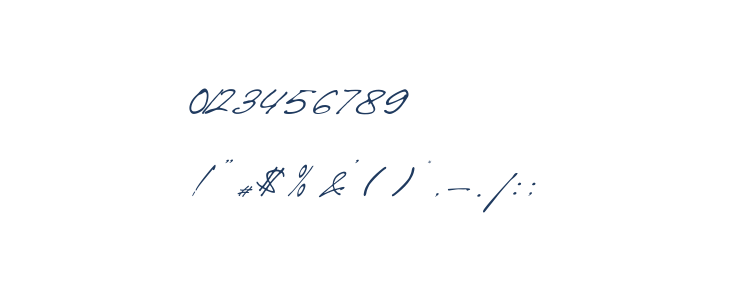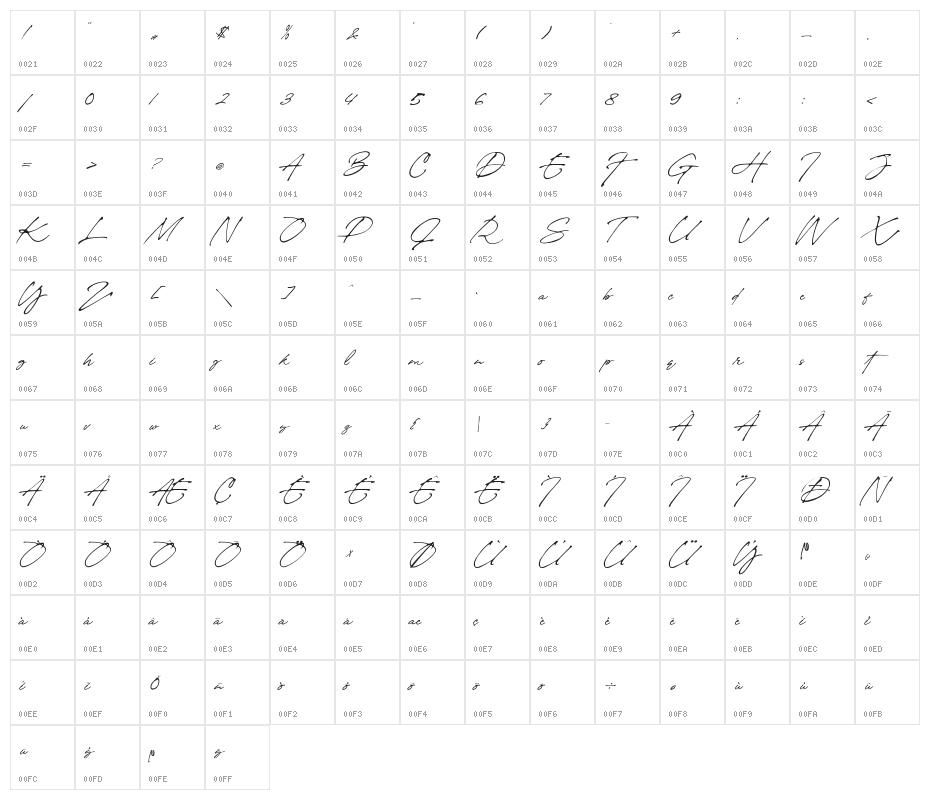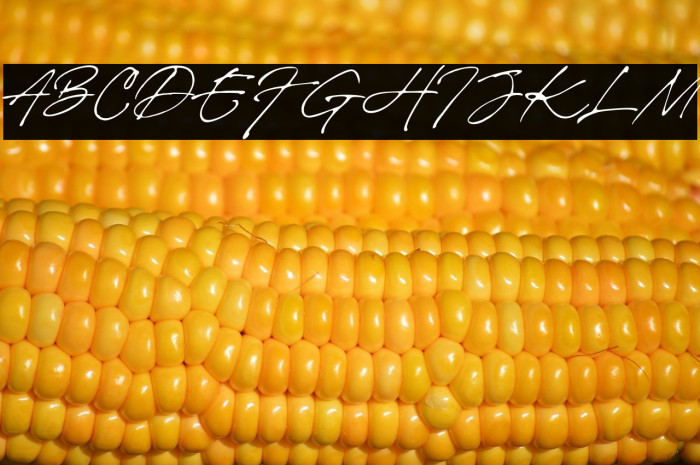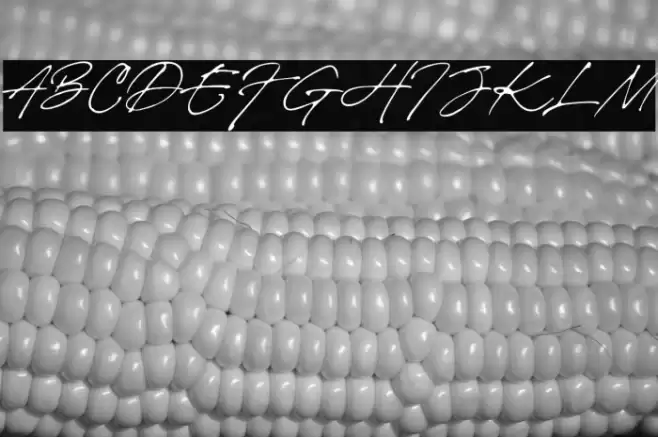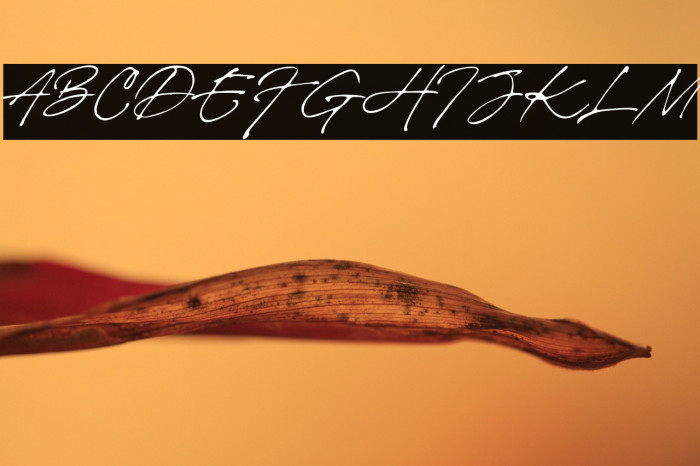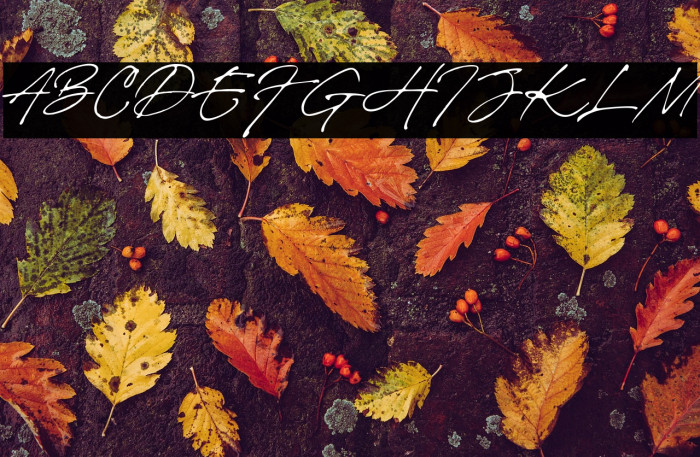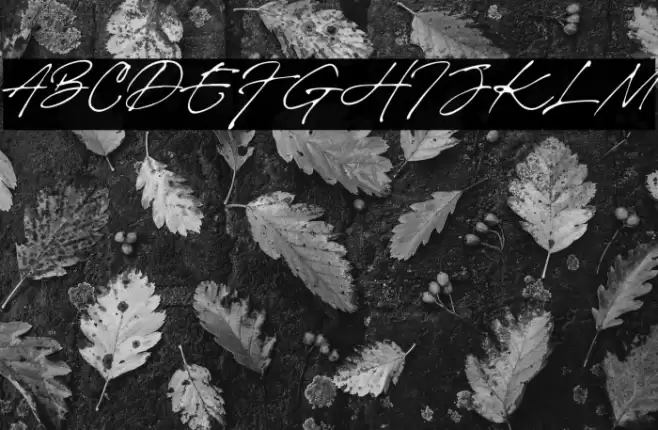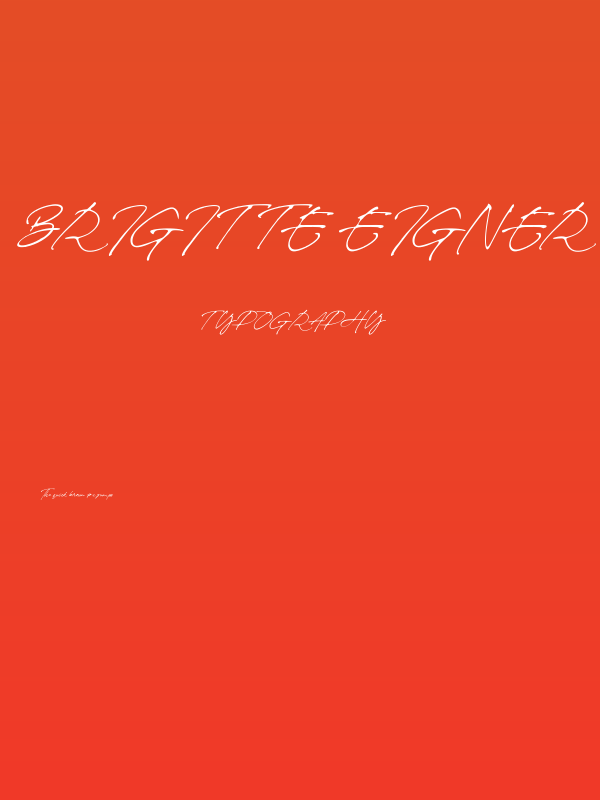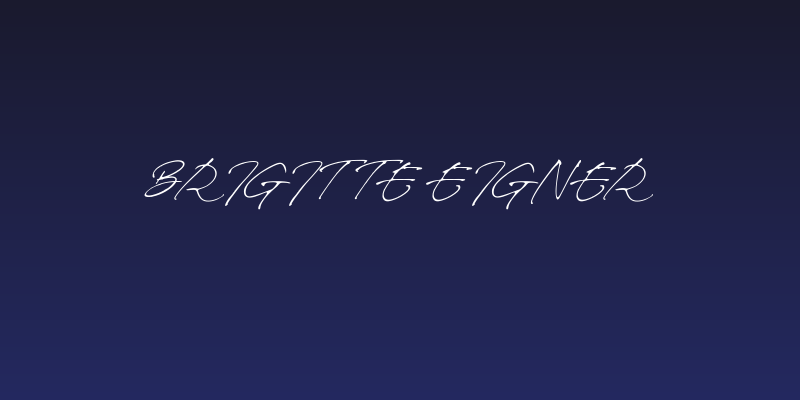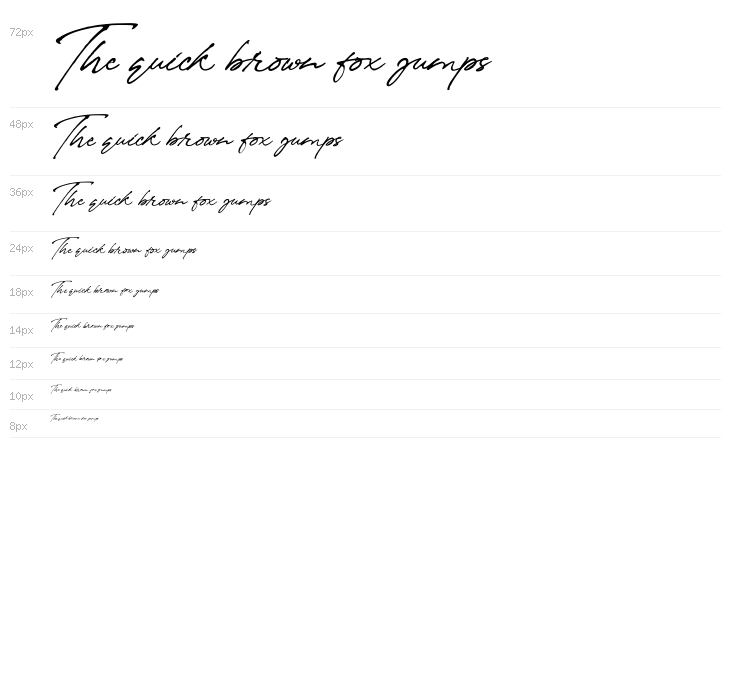
Brigitte Eigner Font
Brigitte Eigner Description
This font exudes elegance and sophistication with its fluid, cursive style. The letters are interconnected, mimicking the natural flow of handwriting. Each character is crafted with a delicate touch, featuring thin and graceful strokes that vary in thickness, adding a dynamic and lively feel. The uppercase letters are slightly larger and more ornate, while the lowercase letters maintain a consistent and smooth appearance. Numbers and special characters are designed to complement the overall aesthetic, ensuring a cohesive look. This font is perfect for projects that require a personal and artistic touch.
| Proposed Projects | Ideal for wedding invitations, personal branding, greeting cards, and artistic projects. |